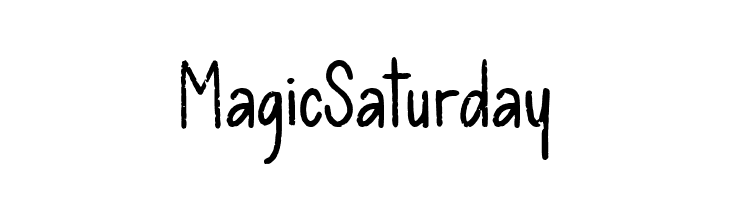
A bold, futuristic font with geometric and angular design elements.
A bold, handwritten font with a playful and casual style.
A lively, illustrative decorative font inspired by expressive street art.
A modern, clean font with uniform strokes and excellent readability.
A bold, geometric font with a futuristic and digital aesthetic.
Playful handwritten font with a whimsical style.
A fluid, cursive script font with an elegant, handwritten style.
A bold, decorative font with gothic and medieval influences, featuring intricate and ornate designs.
A playful, cartoonish font with bold outlines and irregular shapes.
A playful, handwritten font with tall, narrow characters and a casual style.
A playful and whimsical script font with flowing, interconnected letters.
A modern, geometric font with characters enclosed in circles.
A minimalist, handwritten font with smooth, flowing lines and a casual feel.
A playful, handwritten font with smooth, flowing lines and a casual style.
Hand-drawn decorative font made of household object illustrations.
A playful, tall handwritten font with a casual and organic feel.
A modern, geometric font with a blend of rounded and straight edges.
A bold, flowing script font with elegant flourishes and interconnected letters.
A dynamic, brush-style font with a hand-painted appearance.
Bold, playful font with shadow effect.
A textured, zigzag font with a dynamic and energetic style.
A playful, spooky font with a dripping, gooey texture perfect for Halloween themes.
A playful, whimsical handwritten font with elegant loops and swirls.
A modern, geometric sans-serif font with clean lines and rounded edges.
A bold, distressed font with a vintage, grunge aesthetic.
A bold, playful font with exaggerated, rounded shapes and a whimsical style.
A bold, geometric font with a modern, futuristic style.